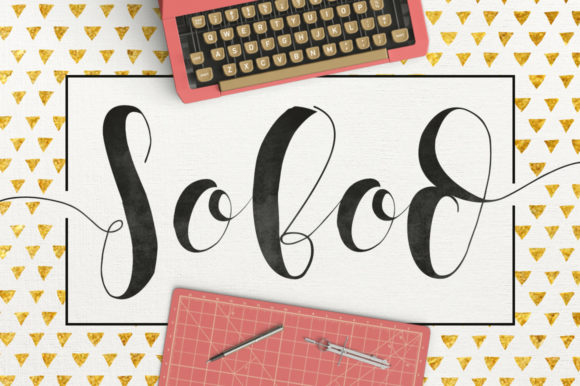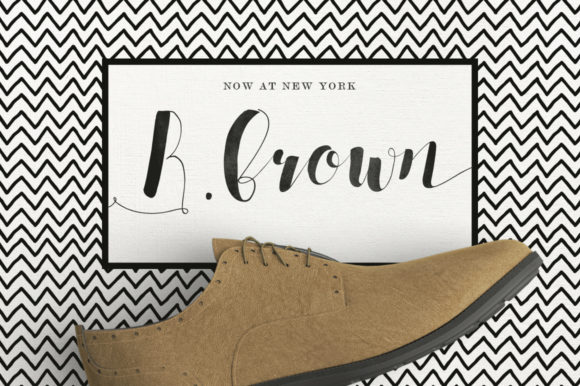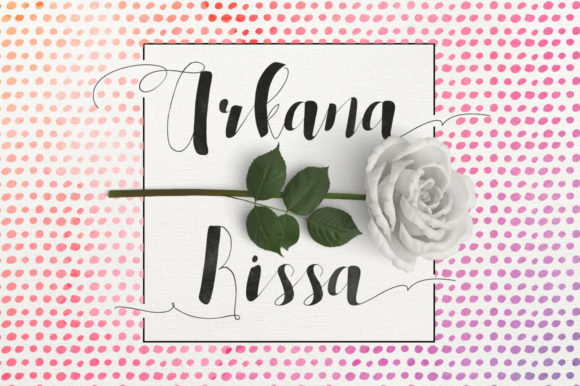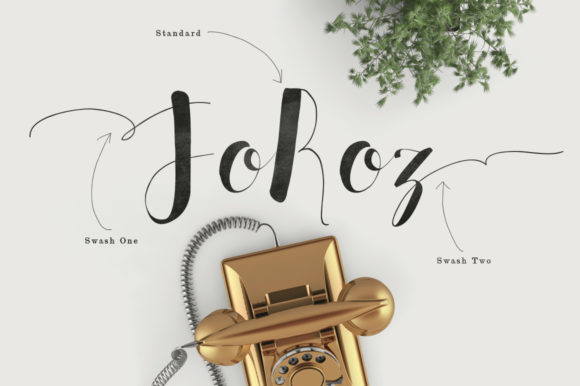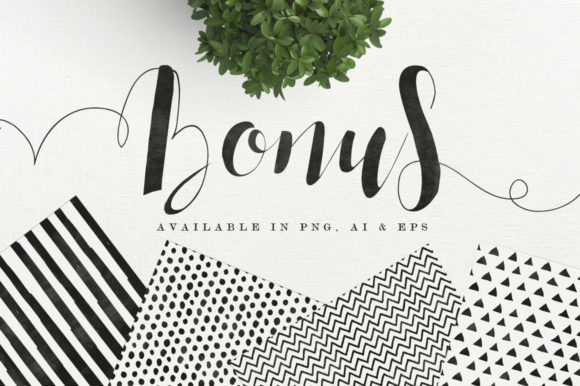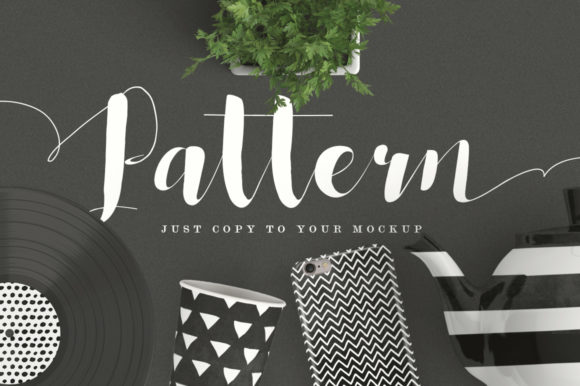
Sobod Font
About Sobod Font
Sobod is a unique handwritten typeface. It has an authentic handwriting feel and it is perfectly suited to stationery, logos, branding, poster, wedding and much more. This font have two long swash characters. You can use this alternates in all software (Microsoft Word, Excel, Adobe, Text Edit, Notepad and many more). Get a handmade pattern bonus which can be use in your design for a great creative.